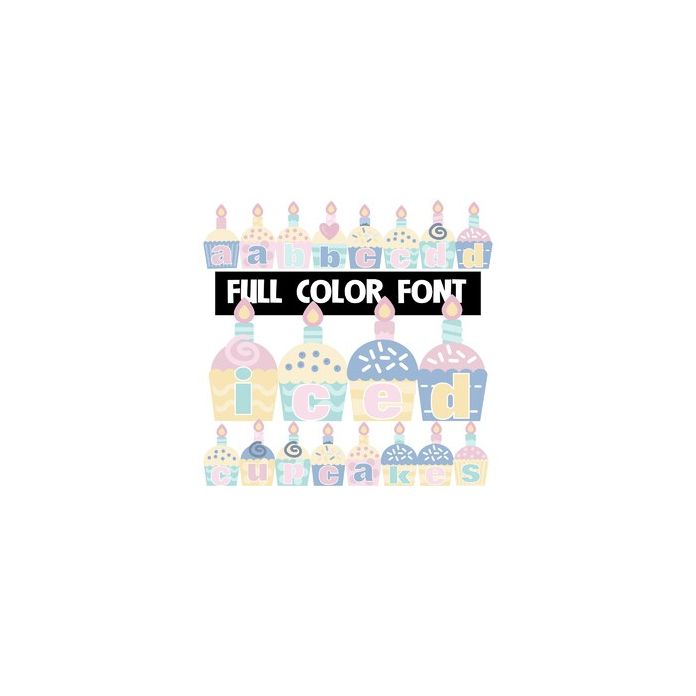
This full-color font features letters on cupcakes in a winter color palette. This font works best for titles, displays, posters and more. Please note color fonts will show as black in non compatible programs. This font type is compatible with Silhouette Studio.